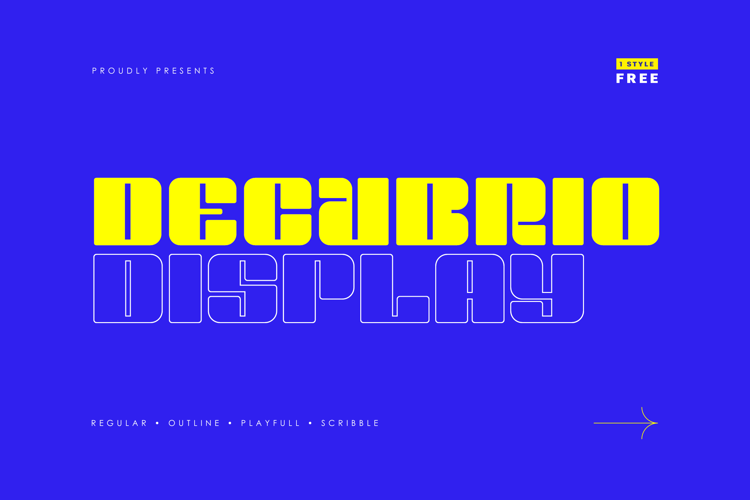
Decabrio Display Font
Display Style
A unique blend of boldness & softness makes this font attractive and suitable for various projects, from corporate branding to creative posters. It’s designed to catch the eye and leave a lasting impression without sacrificing readability.